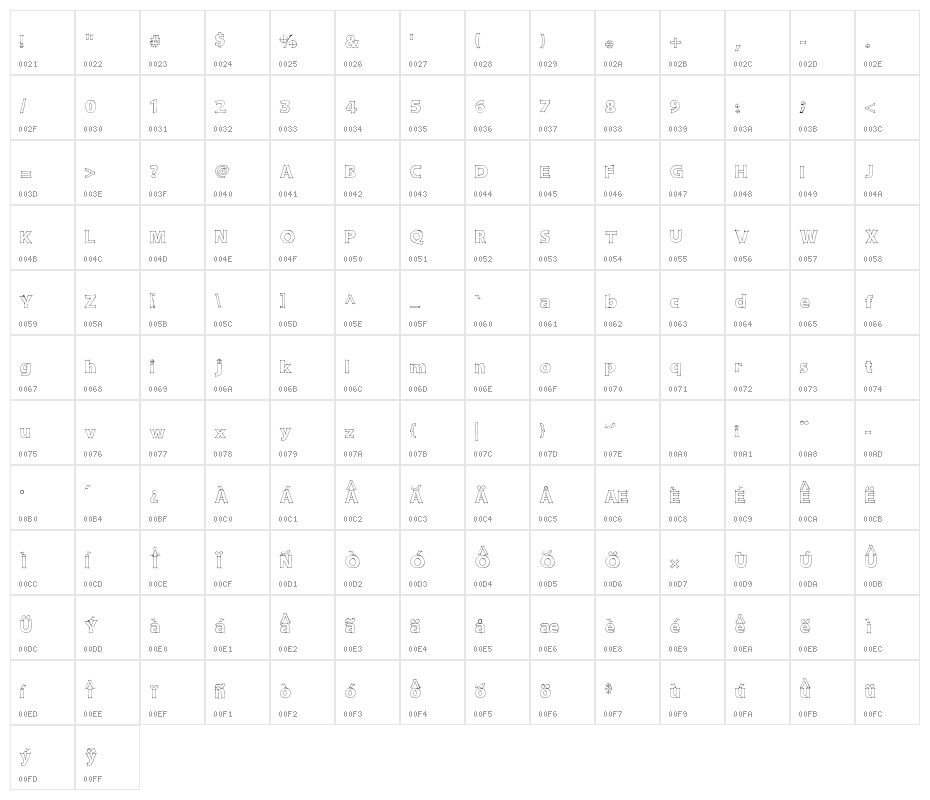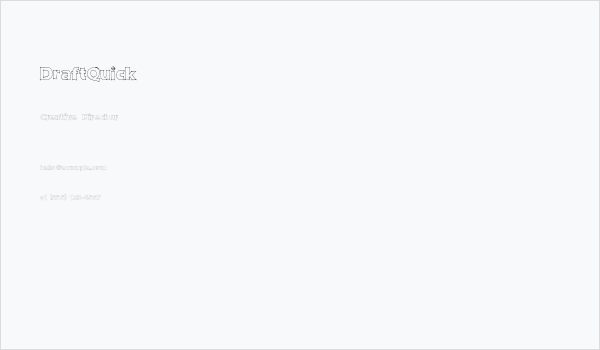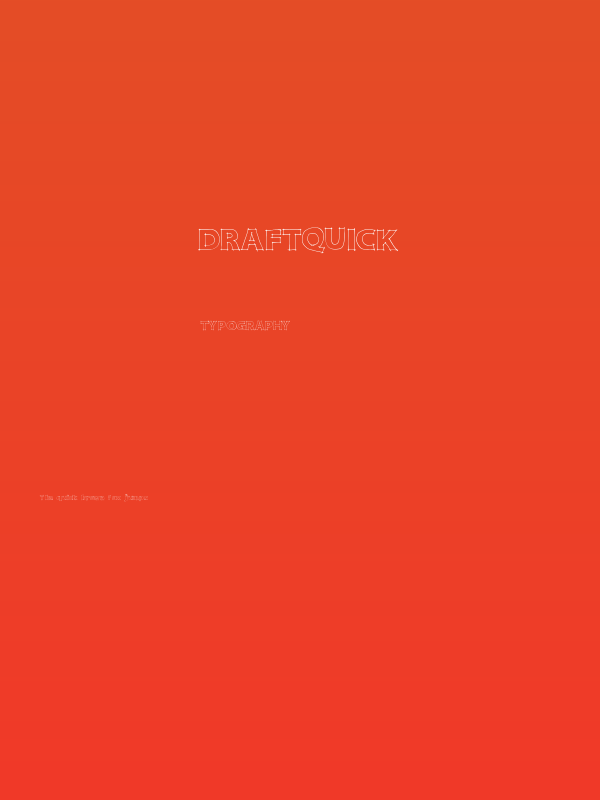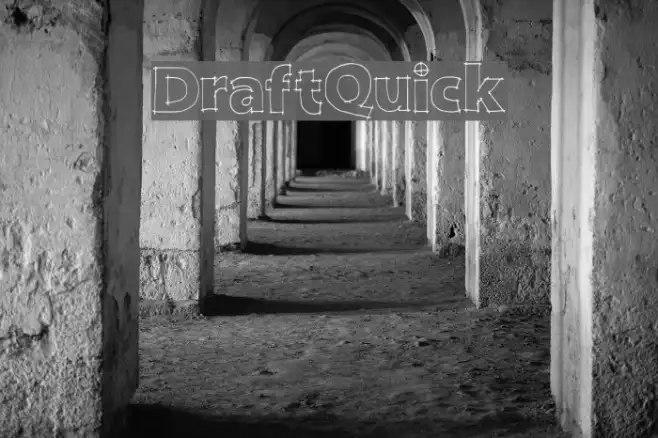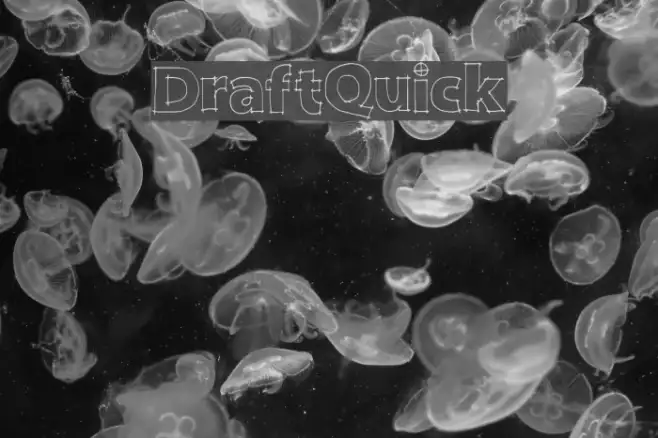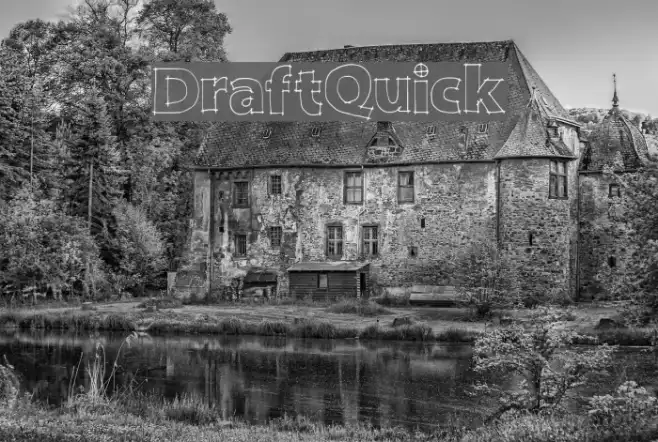
DraftQuick Font
DraftQuick Description
This font features a playful and dynamic design, characterized by its bold and slightly irregular strokes. The letters have a hand-drawn appearance, with subtle variations in line thickness that add a sense of movement and energy. The uppercase and lowercase letters maintain a consistent style, with rounded edges and a slightly condensed form. The numerals and special characters follow the same design principles, ensuring a cohesive look across all elements. This font's unique style makes it stand out, offering a creative and artistic touch to any project.
| Proposed Projects | Ideal for creative projects such as children's books, playful branding, artistic posters, and unique invitations. |